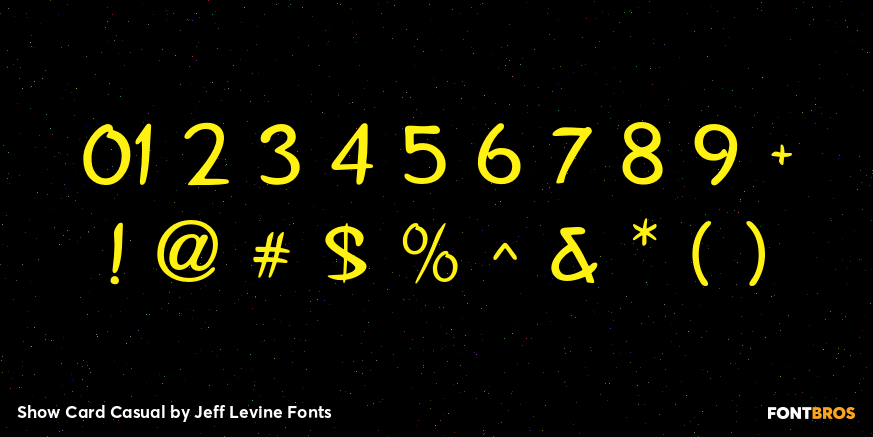
Show Card Casual
Alf Becker graced the pages of 'Signs of the Times' magazine month after month for decades, presenting attractive and unusual hand lettered alphabets as inspiration for other sign painters and show card writers.
From straightforward text faces to novelty ideas, Becker's talent as a master sign crafter was constant in his work.
Show Card Casual JNL is one example of what is referred to as a 'one stroke' alphabet (utilizing a single brush stroke in each direction to form the letter or number). Its casual look and playful charm allow for a message to be presented in an informal format that is pleasing to the eye.
The type design is available in both regular and oblique versions.